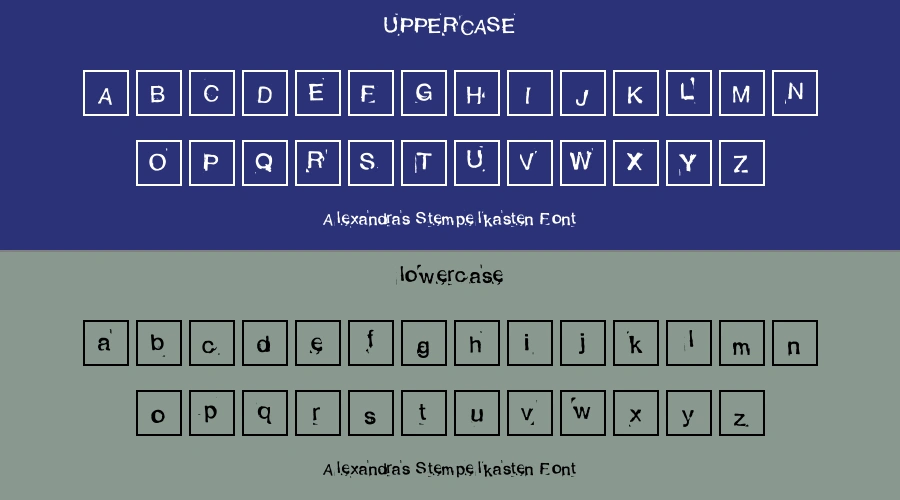
About Alexandras Stempelkasten Font
Alexandras Stempelkasten Font represents a sophisticated approach to type design, balancing artistic freedom with technical accuracy. Perfect for wayfinding systems, this font family showcases impressive consistency and classic beauty throughout its character set. Designers appreciate its versatility and reliability.
Designers will appreciate nuanced touches including artistic freedom and tabular figures, adding sophistication to any project. These features become apparent in compliance seals, where small cap rendering matters most. The careful treatment of counter shape and artistic merit ensures optimal performance.